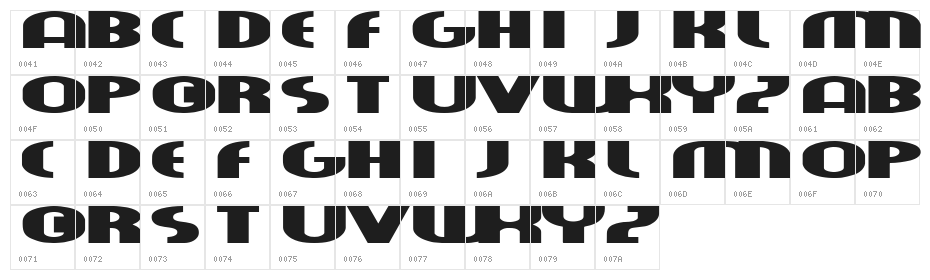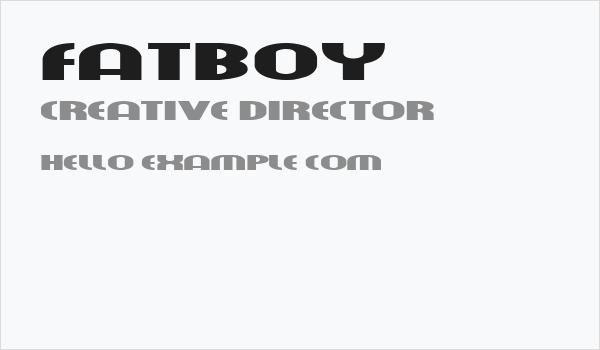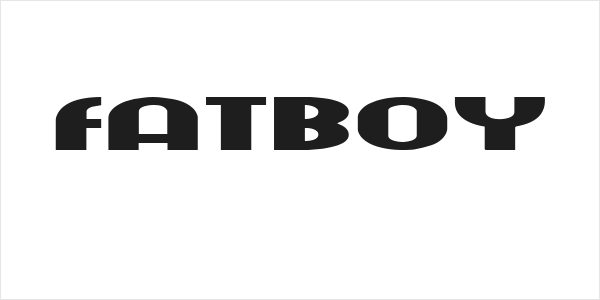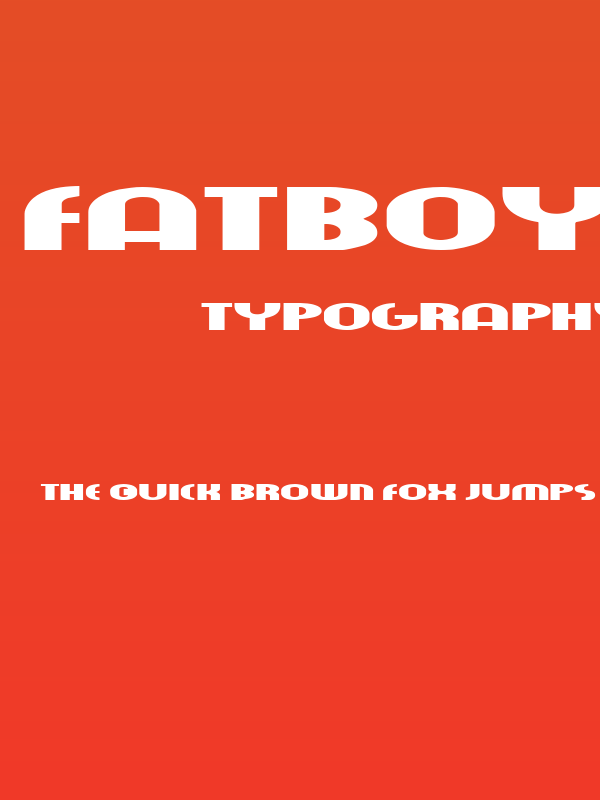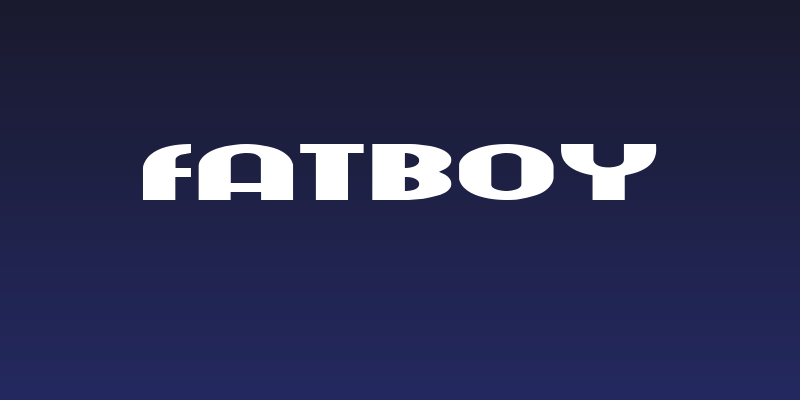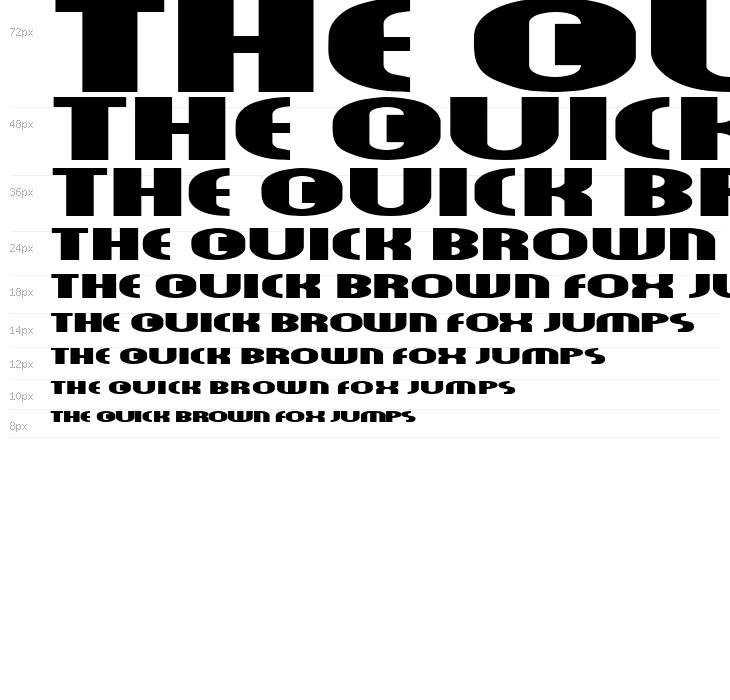
fatboy Font
fatboy Description
This font features a bold and robust design with thick, rounded strokes that create a strong visual impact. The characters are wide and have a distinctive geometric style, making them stand out prominently. The uppercase letters are particularly striking, with a consistent height and width that contribute to the font's cohesive appearance. The lowercase letters maintain the same boldness, ensuring readability and uniformity across different text sizes. The overall design is modern and eye-catching, suitable for projects that require a strong and memorable typographic presence.